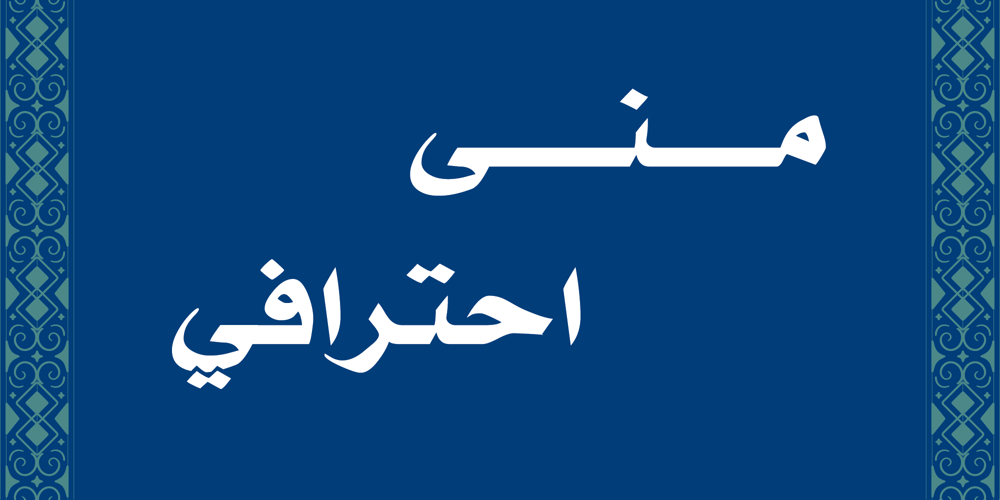
Muna Pro Font Family was designed by Adil Allawi, Abdalla Faris and published by Diwan Software. Muna Pro contains 3 styles and family package options. Muna is a refined and versatile Arabic font that combines timeless sophistication with modern elegance. Inspired by classic serif fonts like Times, it’s perfect for both body text and headlines. With three weights—Light, Regular, and Bold—Muna offers flexibility for editorial content, advertising, and digital platforms. Its well-crafted letterforms ensure readability and style, making it ideal for long-form text, magazines, books, and more. Muna’s elegant structure and graceful curves bring professionalism and warmth to any design.The Pro version was extended to include full Unicode Arabic, professional accent placement, and improved glyph outlines.